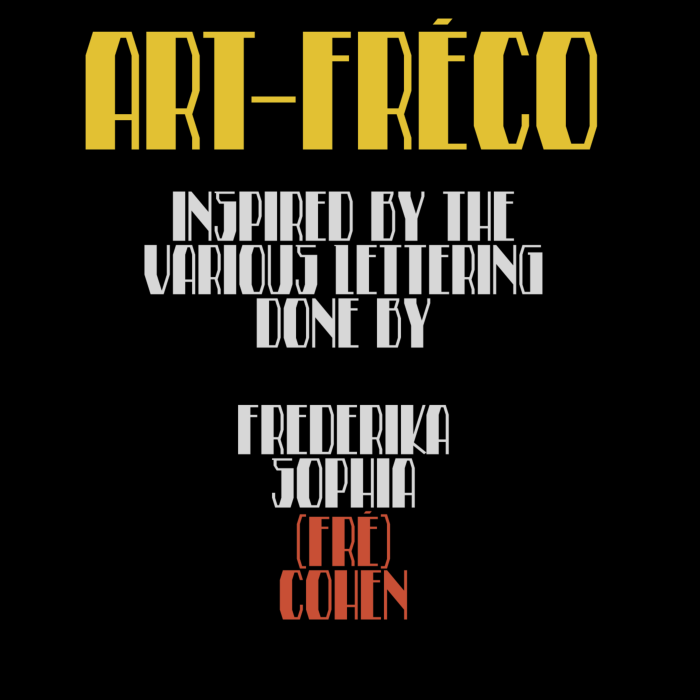
• ART-FRÉCO - Art-Deco style typeface
My second Fontstruction that honours the work of Fré Cohen.
In loving memory of the great Dutch graphical designer
Frederika Sophia (Fré) Cohen (August 11, 1903 – June 14, 1943).
Unlike the previous font that was solely based on digitizing one specific lettering concept, this one is more of a 'inspired' mixture of the various works by Fré Cohen.
The font features a full uppercase set that has the main focus. Everything else was build to supplement mainly these. It features a mixture of glyphs alternates in both upper and lowercase form to make some decorative typographic variations.